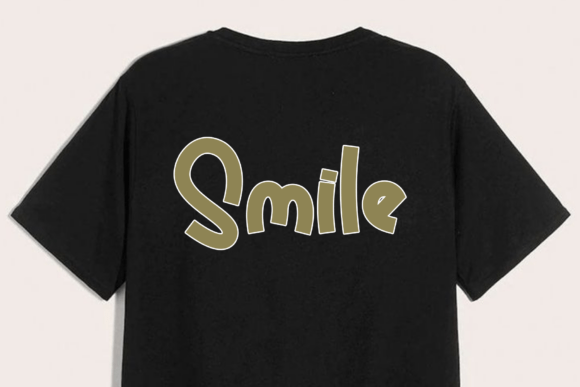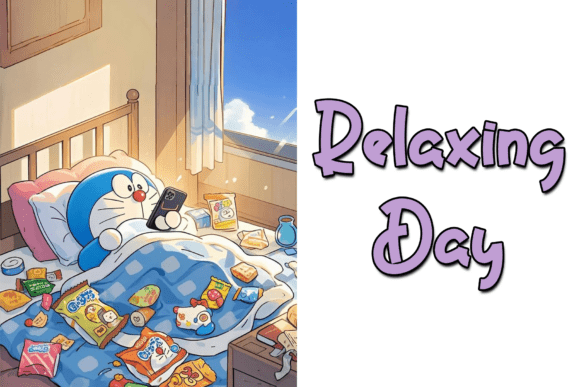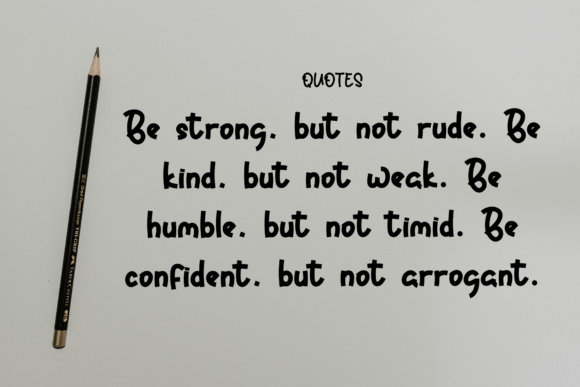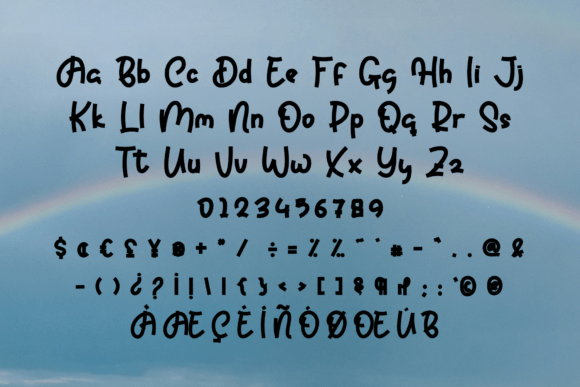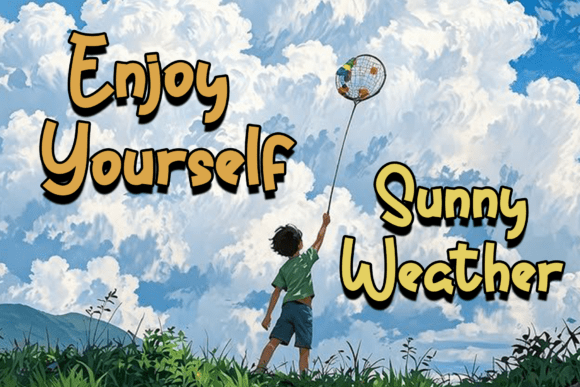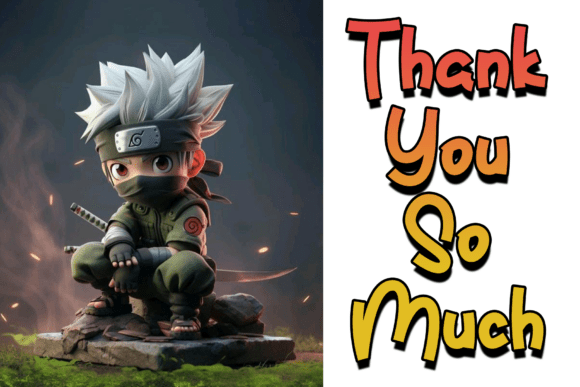
Introducing Delight Rainbow Font: Elevate Your Designs with Elegant Handwritten Style
Are you looking for a font that adds a personal touch to your designs? Do you want to make your invitations, logos, and social media posts stand out with a stylish and elegant flair? Look no further than Delight Rainbow Font, a beautiful handwritten font with a natural, flowing style that’s perfect for crafters and designers alike.
What is Delight Rainbow Font?
Delight Rainbow Font is a stunning handwritten font that mimics elegant cursive writing. Its natural, flowing style gives it a unique and sophisticated look that’s sure to impress. With its beautiful lettering and whimsical feel, this font is perfect for adding a touch of personality to your designs.
Key Features of Delight Rainbow Font
- Handwritten style: Delight Rainbow Font has a beautiful, handwritten style that’s perfect for adding a personal touch to your designs.
- Elegant cursive writing: The font’s elegant cursive writing style makes it perfect for invitations, logos, and social media posts.
- Natural, flowing style: The font’s natural, flowing style gives it a unique and sophisticated look.
- Multilingual support: Delight Rainbow Font supports multiple languages, making it perfect for designers and crafters around the world.
Uses of Delight Rainbow Font
Delight Rainbow Font is a versatile font that can be used in a variety of ways. Here are some ideas to get you started:
- Invitations: Use Delight Rainbow Font to create beautiful, elegant invitations for weddings, birthdays, and other special occasions.
- Logos: Add a personal touch to your logos with Delight Rainbow Font’s elegant cursive writing style.
- Social media posts: Make your social media posts stand out with Delight Rainbow Font’s whimsical and elegant style.
- Crafting projects: Use Delight Rainbow Font to add a personal touch to your crafting projects, such as scrapbooking, card making, and journaling.
Benefits of Using Delight Rainbow Font
There are many benefits to using Delight Rainbow Font in your designs. Here are a few:
- Unique and stylish: Delight Rainbow Font adds a unique and stylish touch to your designs, setting them apart from the rest.
- Elegant and sophisticated: The font’s elegant cursive writing style gives your designs an air of sophistication and elegance.
- Easy to read: Despite its elegant style, Delight Rainbow Font is easy to read, making it perfect for use in a variety of contexts.
- Versatile: Delight Rainbow Font can be used in a variety of ways, from invitations and logos to social media posts and crafting projects.
Tips for Using Delight Rainbow Font
Here are a few tips for using Delight Rainbow Font in your designs:
- Use it sparingly: Delight Rainbow Font is a statement font, so use it sparingly to add a touch of elegance to your designs.
- Pair it with other fonts: Pair Delight Rainbow Font with other fonts to create a unique and interesting contrast.
- Experiment with colors: Delight Rainbow Font looks great in a variety of colors, so experiment to find the perfect hue for your design.
Delight Rainbow Font is a beautiful handwritten font with a natural, flowing style that’s perfect for adding a personal and stylish touch to your designs. With its elegant cursive writing style, multilingual support, and versatility, this font is perfect for designers and crafters around the world. Whether you’re creating invitations, logos, social media posts, or crafting projects, Delight Rainbow Font is sure to elevate your designs to the next level.